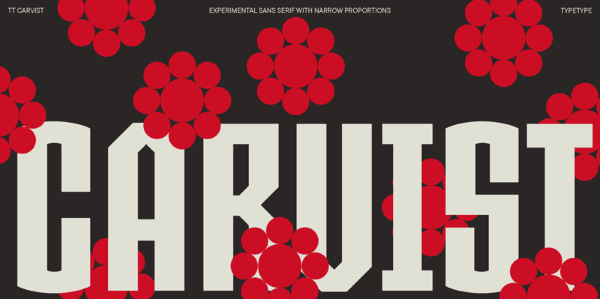
TT Carvist Font
TT Carvist by TypeType Foundry is a display typeface that takes geometric rigour to an expressive extreme. Rooted in the studio’s TT Tunnels family but transformed into something wholly its own, it is defined by a modular structure, 45-degree diagonal outer cuts, extra narrow proportions, closed apertures, and oversized ink traps in the lowercase — while deliberately eliminating all round letterform. Free trial available for personal use.